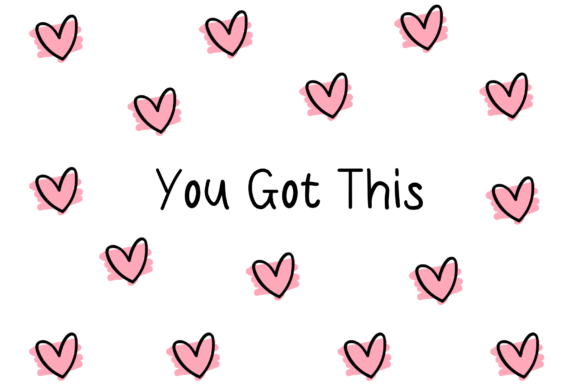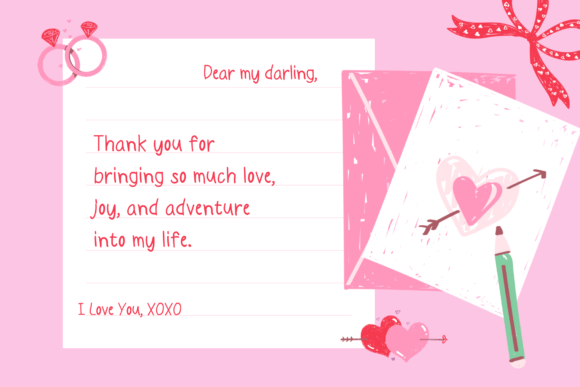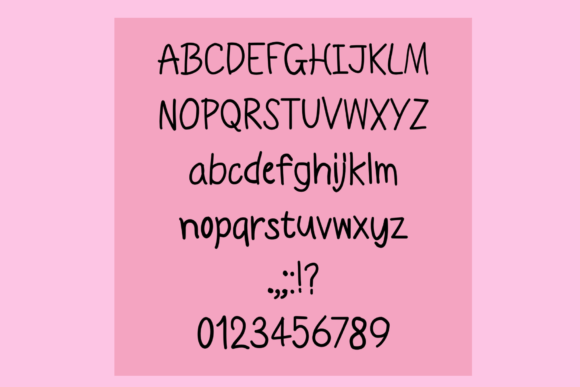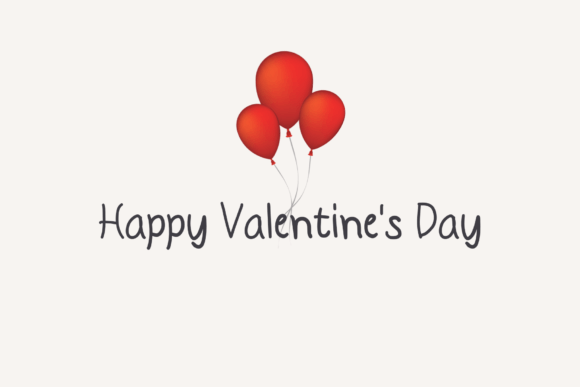
Cute Love Font: The Sweet and Friendly Handwritten Display Font
Are you looking for a font that can add a touch of sweetness and friendliness to your designs? Look no further than the Cute Love font! This beautiful handwritten display font is perfect for crafts, digital design, presentations, and writing wedding invitations, cards, or any other design that might need a fun touch.
What Makes Cute Love Font So Special?
Cute Love font is a unique and charming font that is sure to capture the hearts of designers and crafters alike. Its sweet and friendly appearance makes it ideal for a wide range of design projects, from comic book styles to game online, love shirts, posters, and movie titles. The font’s playful and whimsical feel makes it perfect for adding a personal touch to any design.
Uses for Cute Love Font
Cute Love font is incredibly versatile and can be used in a variety of ways. Here are some ideas to get you started:
- Crafts: Use Cute Love font to add a personal touch to your craft projects, such as scrapbooking, card making, and DIY gifts.
- Digital Design: Add a fun and playful touch to your digital designs, such as social media graphics, blog posts, and website headers.
- Wedding Invitations: Make your wedding invitations truly special with Cute Love font. Its sweet and romantic feel is perfect for wedding stationery.
- Cards: Use Cute Love font to create one-of-a-kind greeting cards for birthdays, holidays, and special occasions.
- School Projects: Cute Love font is ideal for use in school for both teachers and students. Use it to create fun and engaging educational materials, such as worksheets, posters, and presentations.
- Comic Book Style: Add a playful touch to your comic book style designs with Cute Love font. Its bold and playful feel is perfect for creating eye-catching graphics.
- Game Online: Use Cute Love font to create engaging and interactive online games that are fun and playful.
- Love Shirts: Create custom love shirts with Cute Love font. Its sweet and romantic feel is perfect for creating unique and personalized gifts.
- Posters: Use Cute Love font to create eye-catching posters for movies, events, and promotions.
- Movie Titles: Add a touch of whimsy to your movie titles with Cute Love font. Its playful and bold feel is perfect for creating memorable and engaging titles.
Why Choose Cute Love Font?
There are many reasons why Cute Love font is the perfect choice for your design projects. Here are a few:
- Unique and Charming: Cute Love font is a one-of-a-kind font that is sure to capture the hearts of designers and crafters alike.
- Versatile: Cute Love font can be used in a wide range of design projects, from crafts to digital design.
- Easy to Read: Cute Love font is clear and easy to read, making it perfect for use in a variety of design projects.
- Fun and Playful: Cute Love font adds a fun and playful touch to any design, making it perfect for creating engaging and interactive graphics.
Tips for Using Cute Love Font
- Experiment with Colors: Cute Love font looks great in a variety of colors, from bright and bold to soft and pastel. Experiment with different colors to find the perfect look for your design project.
In conclusion, Cute Love font is a sweet and friendly handwritten display font that is perfect for adding a touch of fun and whimsy to your design projects. Its versatility, unique charm, and ease of use make it a great choice for designers and crafters alike. So why not give Cute Love font a try and see how it can add a personal touch to your designs?